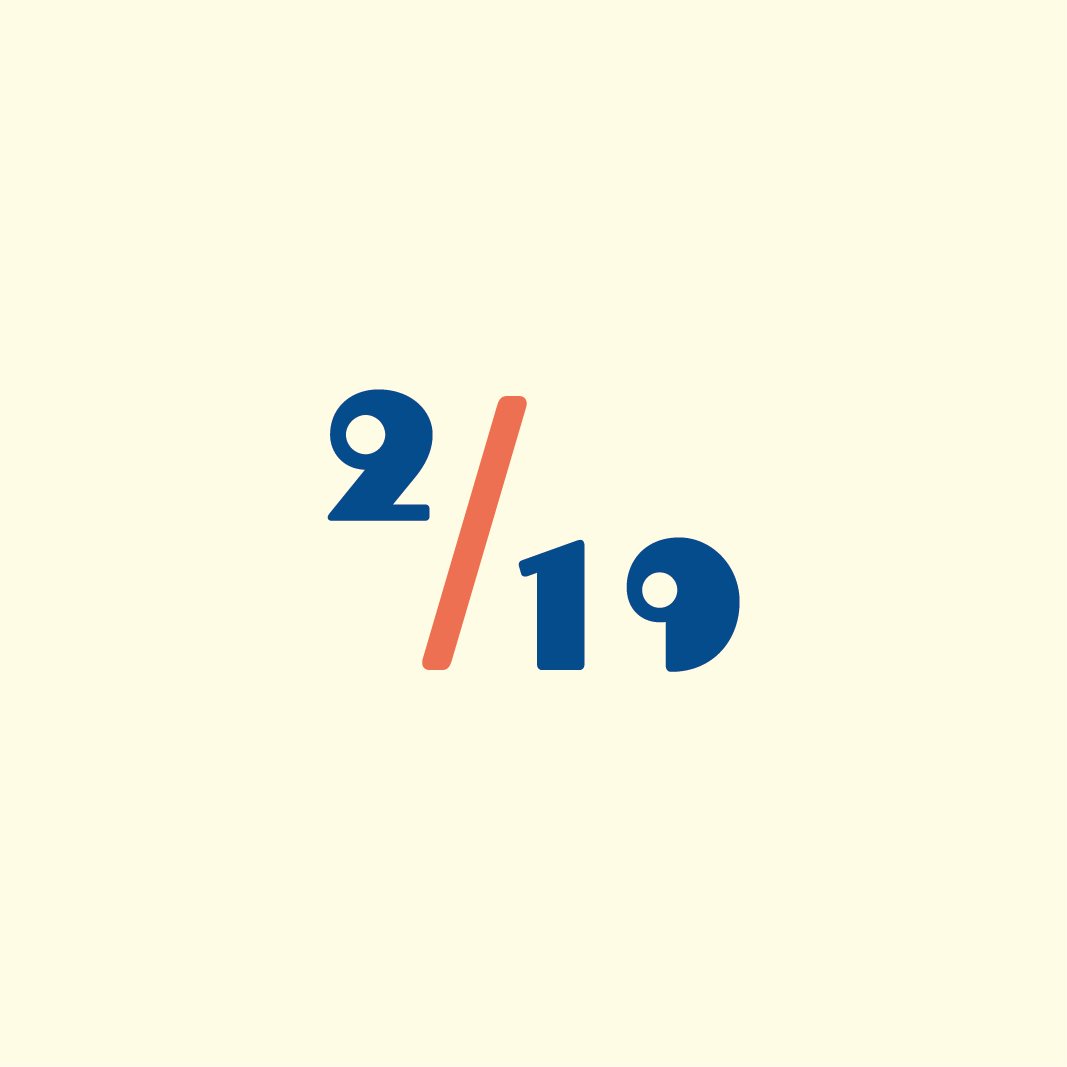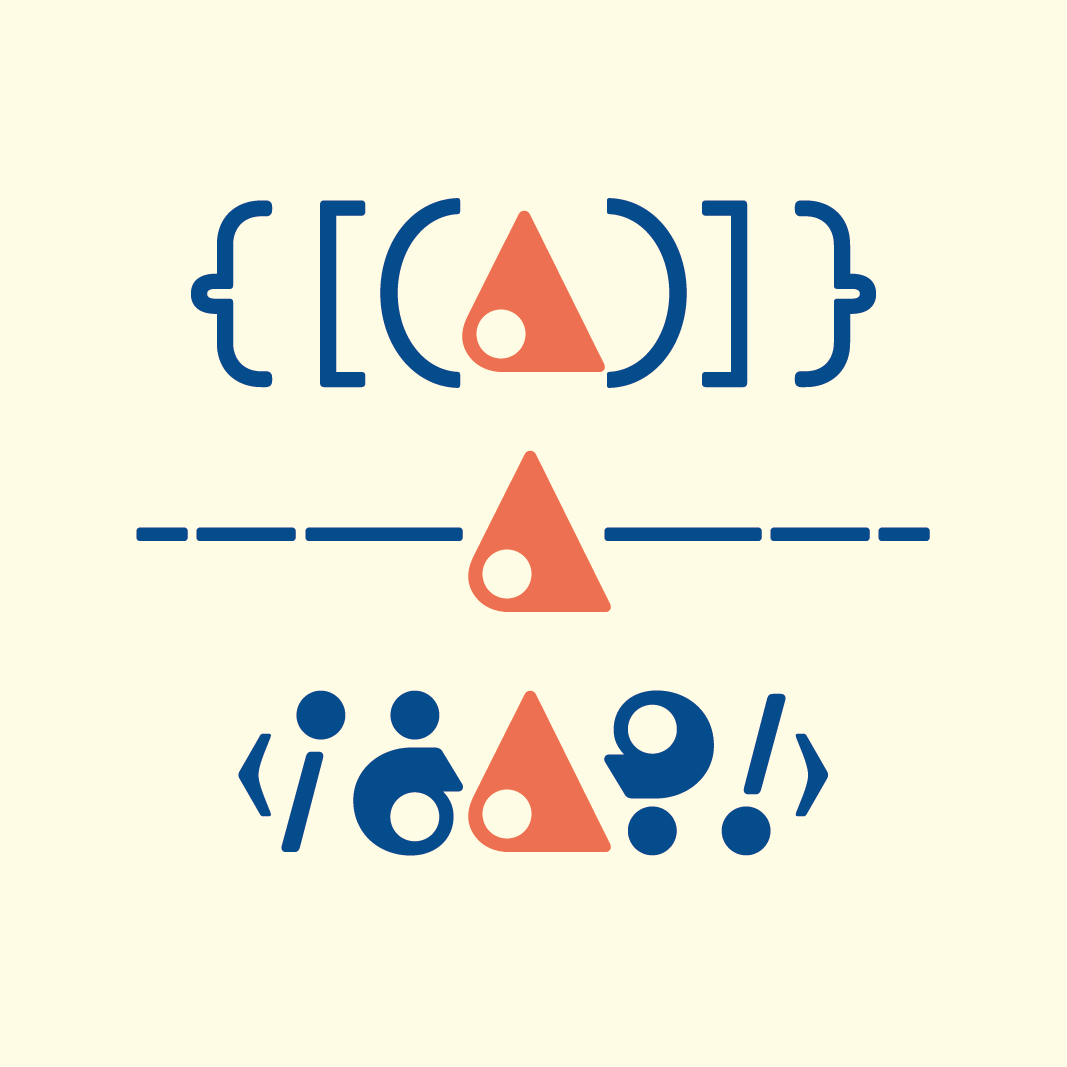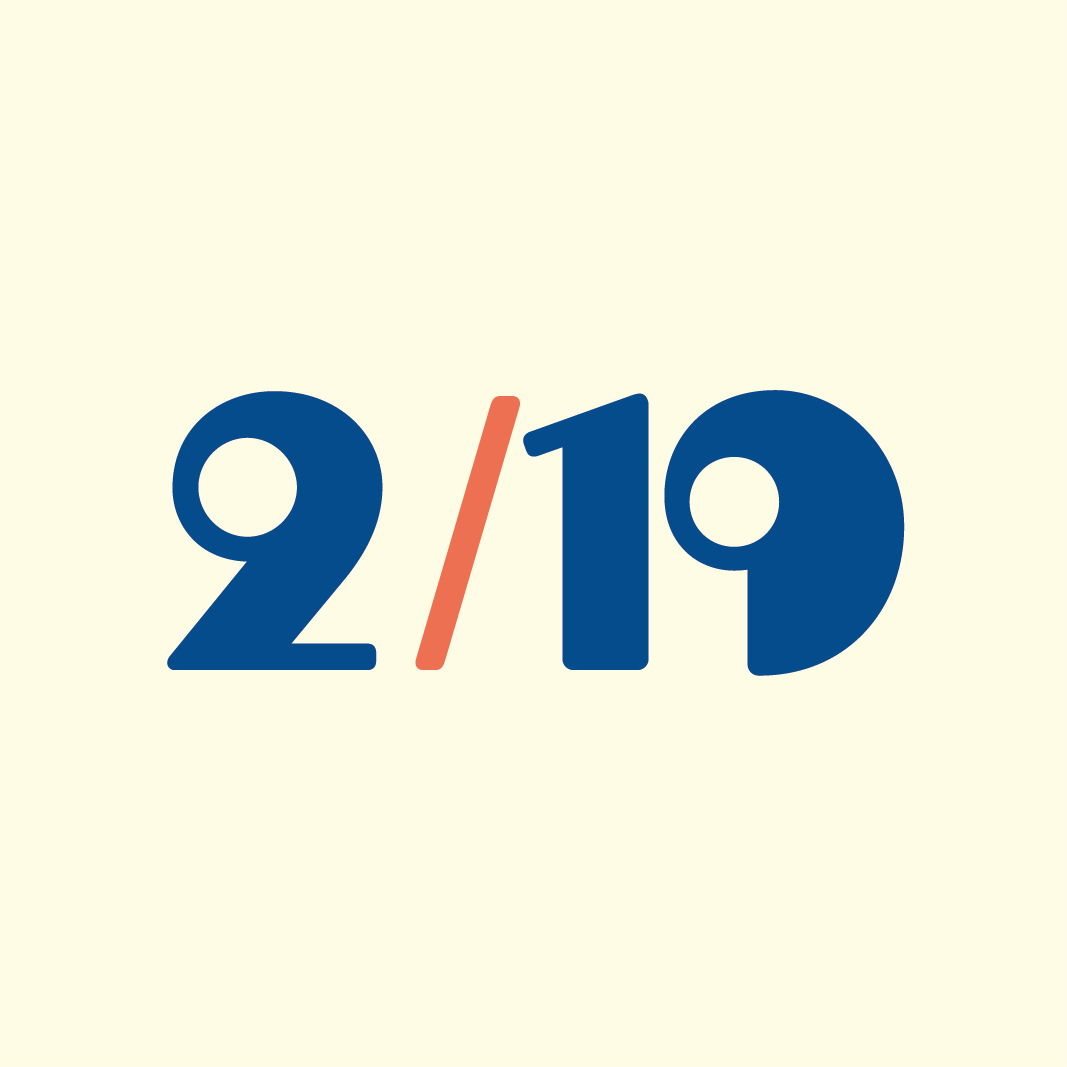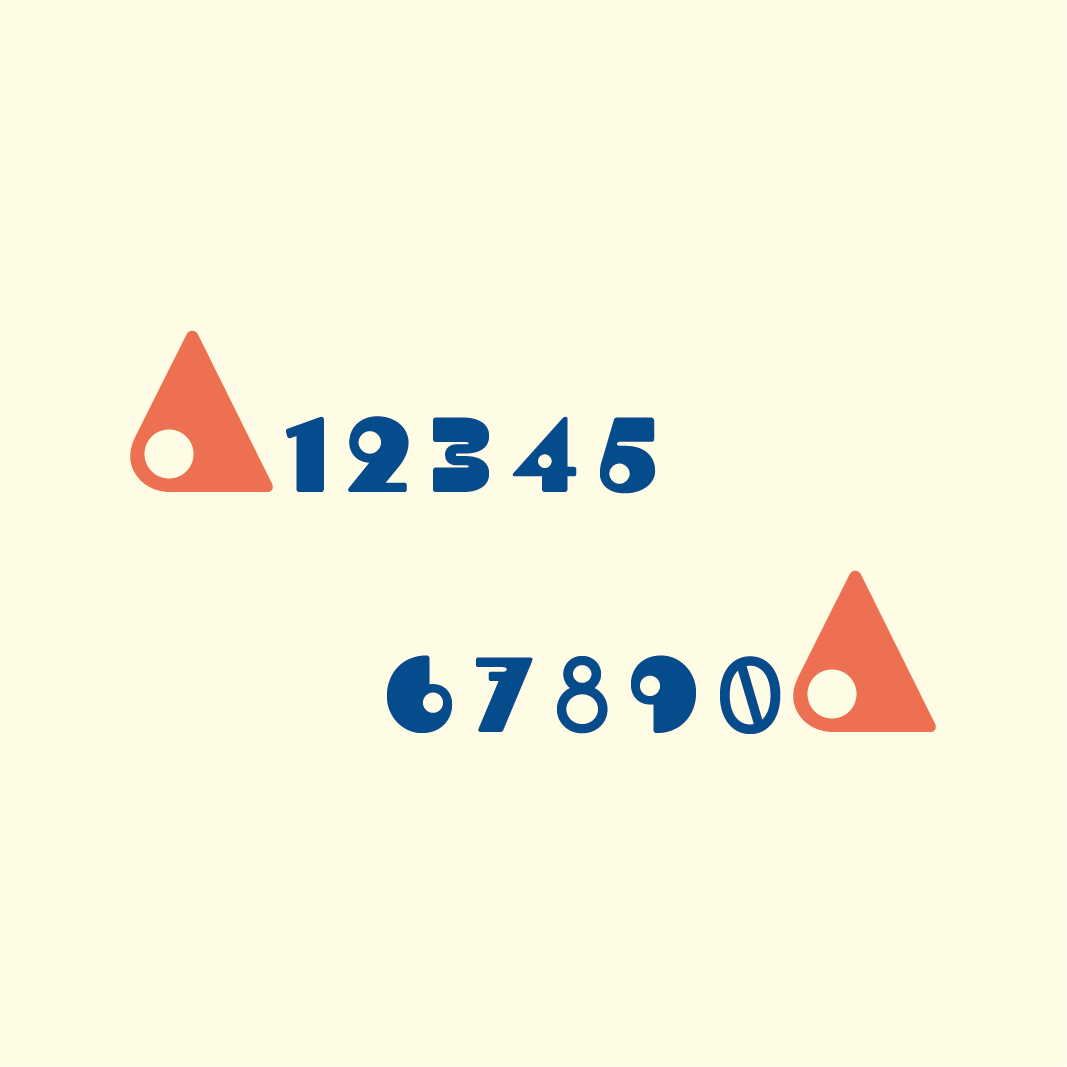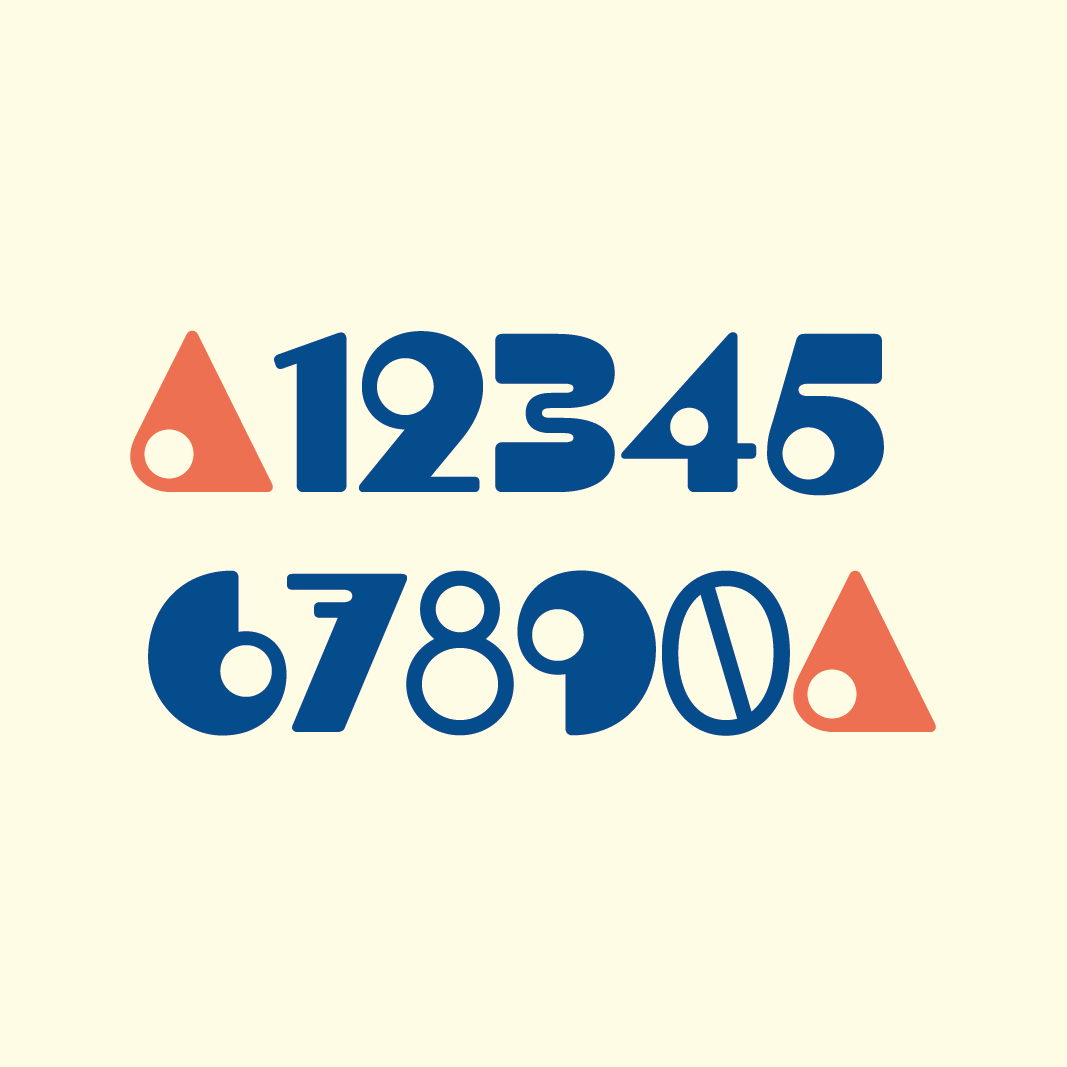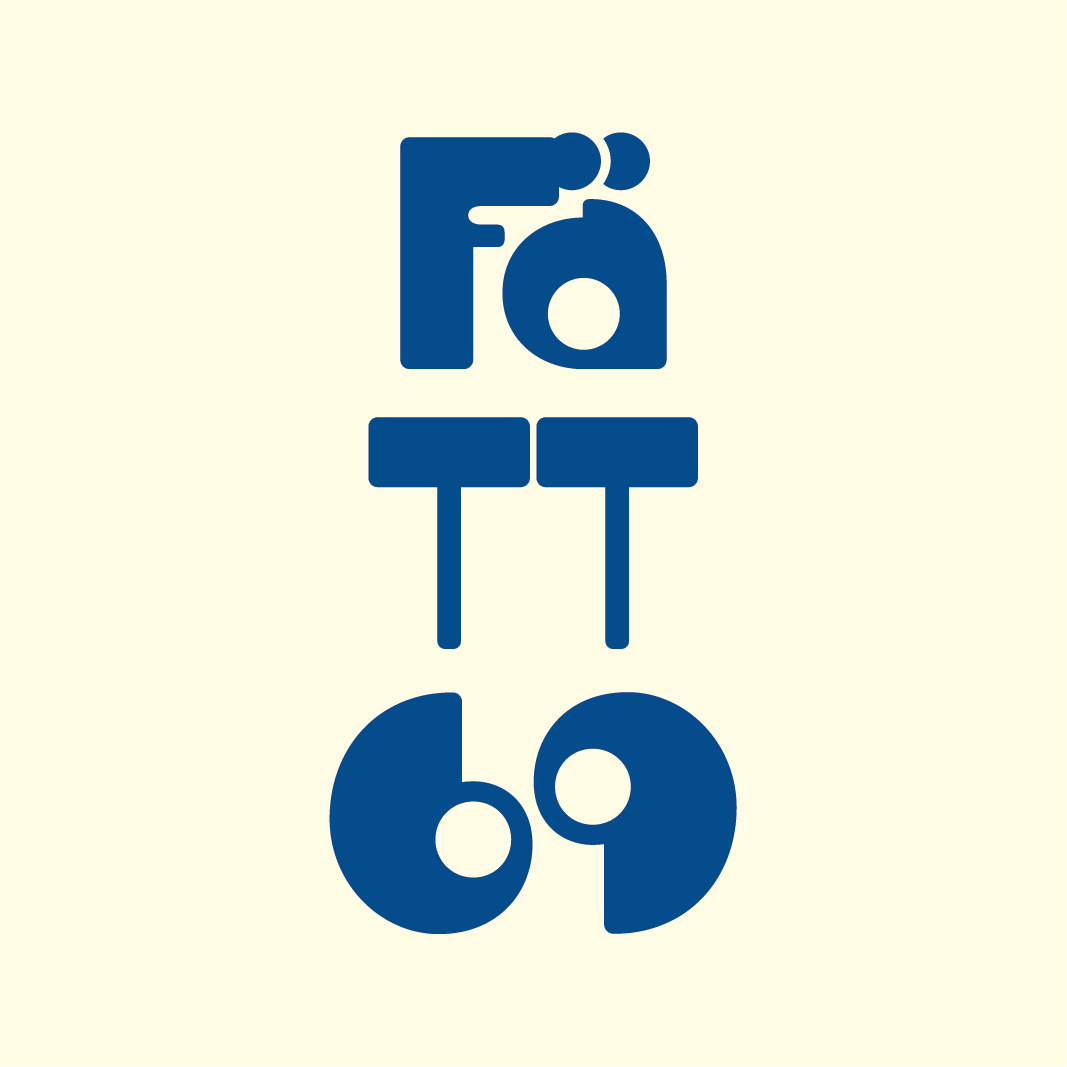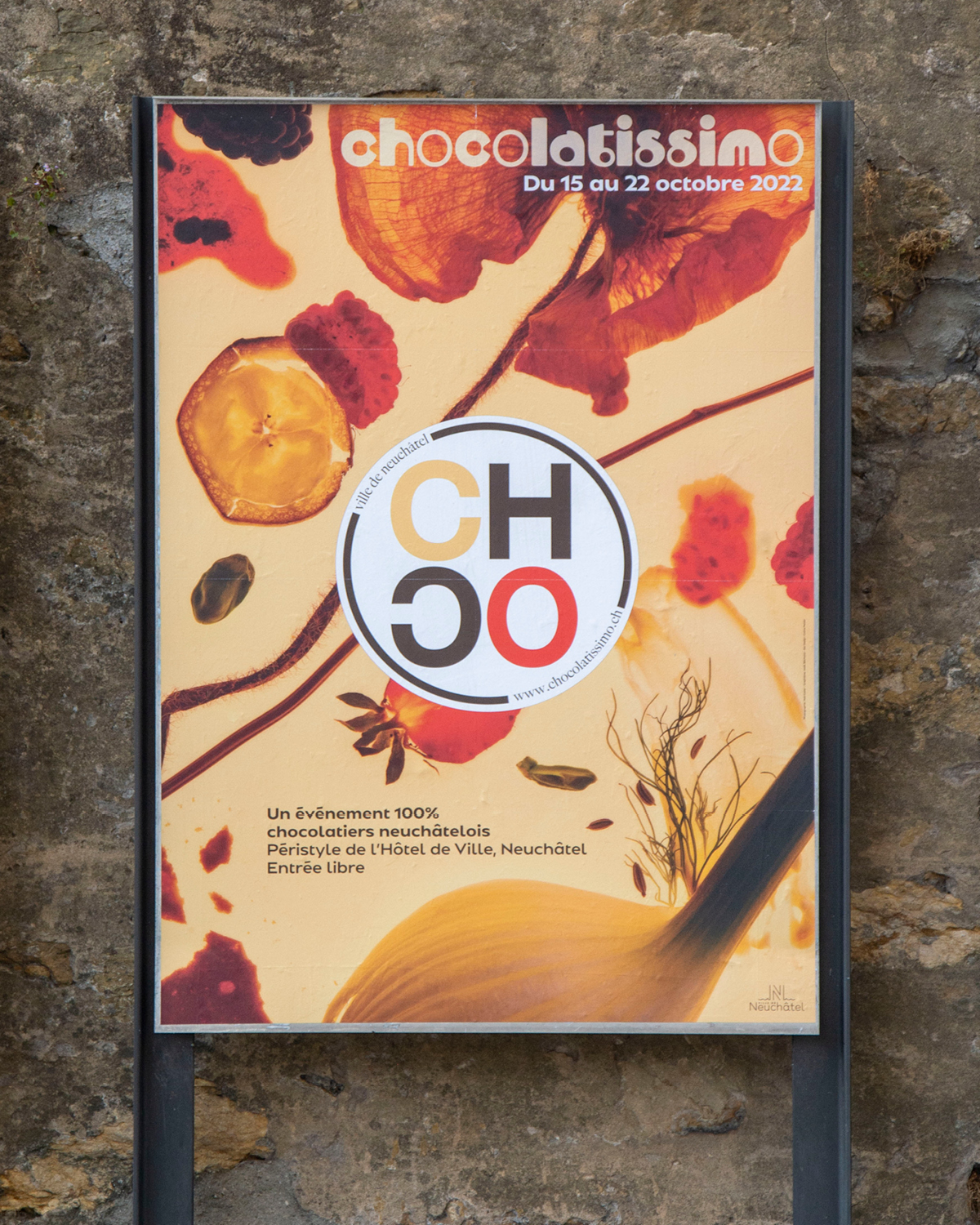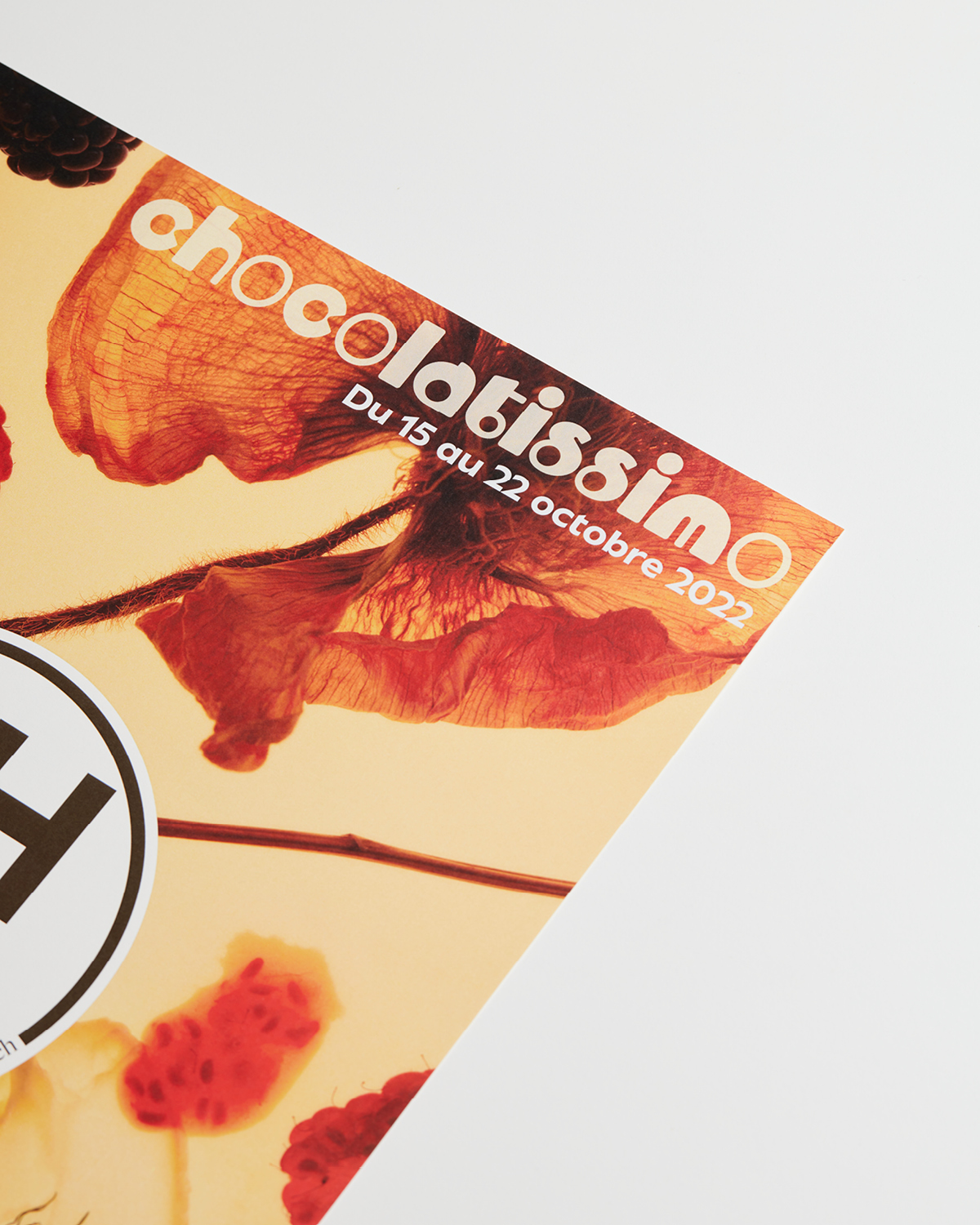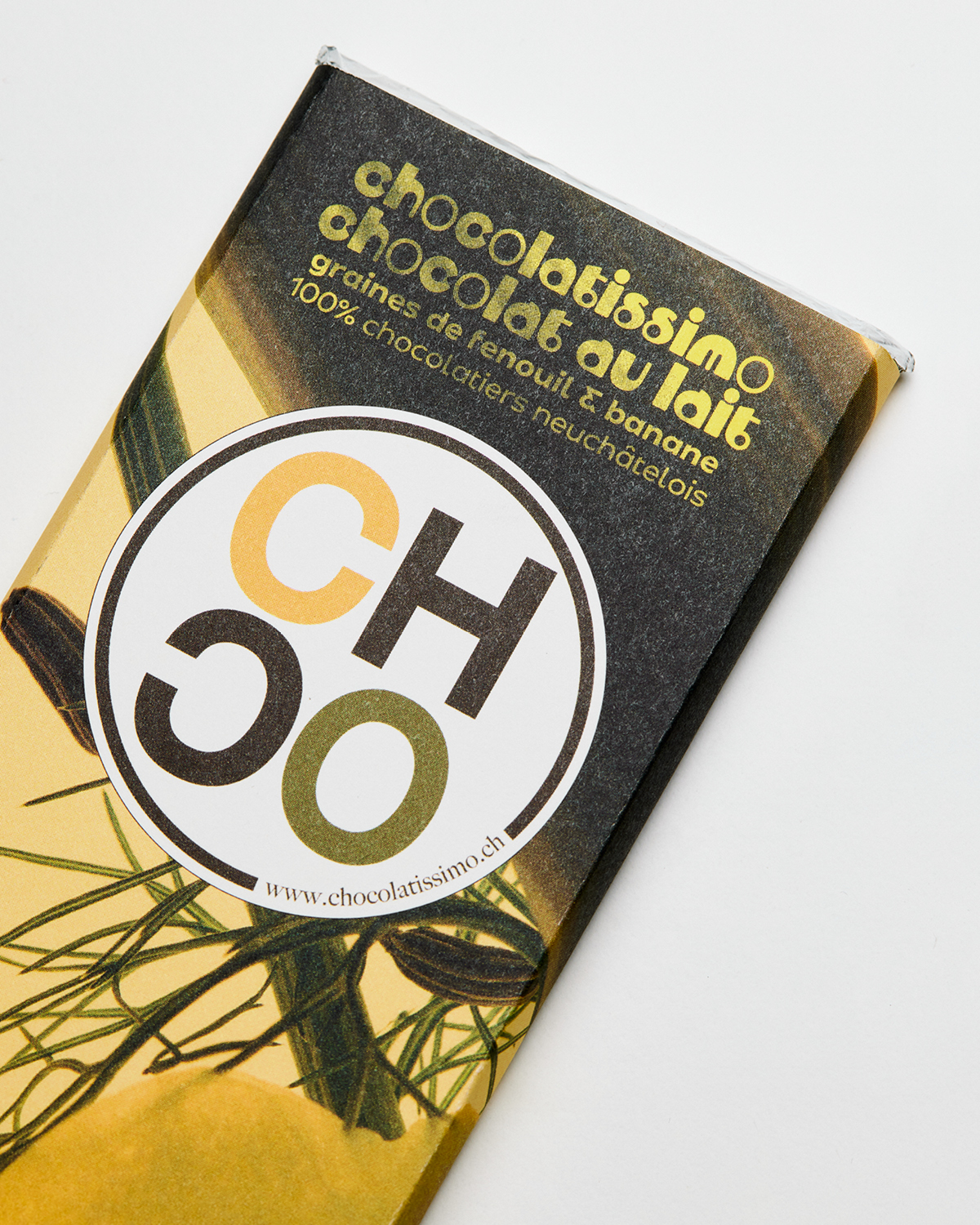
BS Abriko
Abriko
Abriko is born from Bauhaus geometry and a touch of naivety. A display font that balances unity with irregularity, expressive and unconventional.
Abriko in use for Chocolatissimo
Design: Maël Bächtold
Team: Arthur Schwarz
Abriko is a free-minded display font, an impulsive typeface born from Maël Bächtold’s fascination with geometric drawings and expressive display fonts of the Bauhaus era. With a touch of naivety, it experiments with shapes and contrasts, exploring roundness, counter forms and unexpected proportions to give text a friendly yet unconventional presence. Despite its playful irregularities, every detail is deliberate. Contrasts are carefully balanced to maintain visual unity, even when elements are placed unconventionally or omitted from certain glyphs.
BS Abriko is available as a single display style, offering expressive geometric forms and playful contrasts suited for designs that seek a friendly yet unconventional typeface.